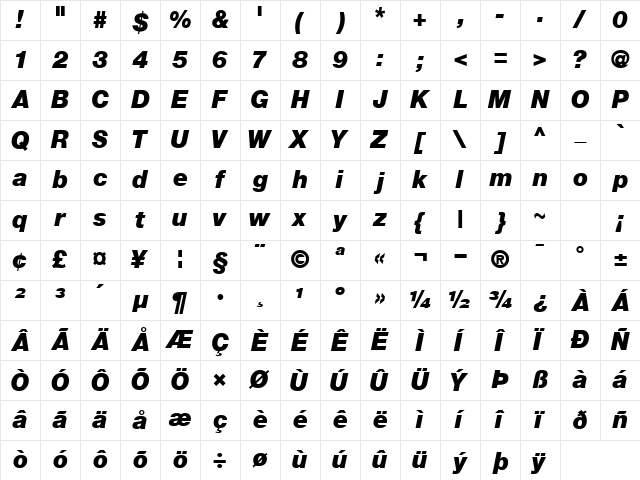
ContextRepriseBlackSSK BoldItalic
Design Context for ContextRepriseBlackSSK
ContextRepriseBlackSSK is a composed and adaptable typeface that performs quietly and consistently across a wide range of design contexts. The slanted form adds forward momentum and visual energy. Its bold stroke weight gives it real presence on the page.